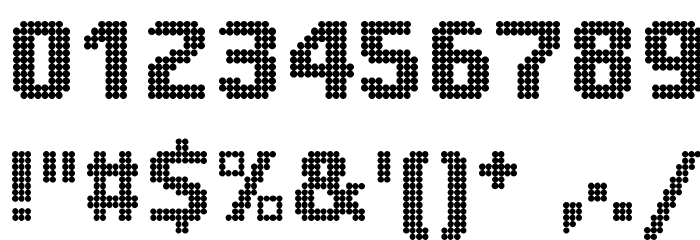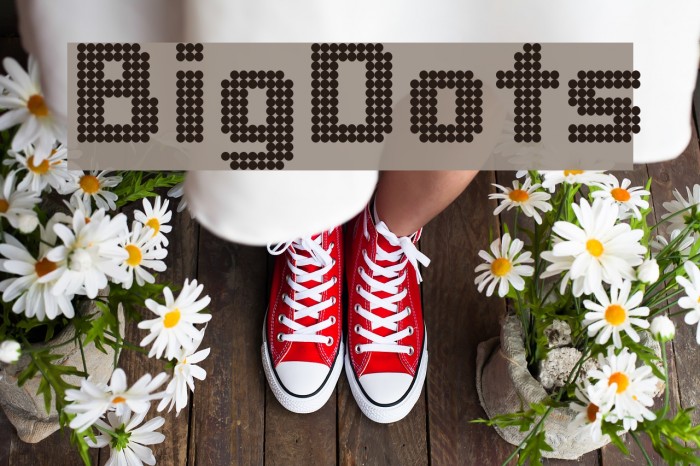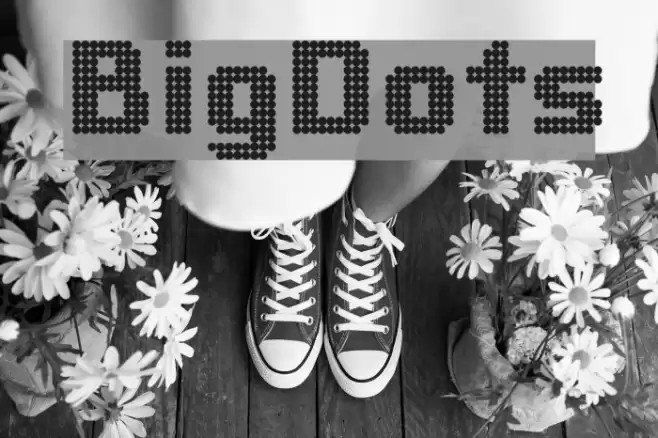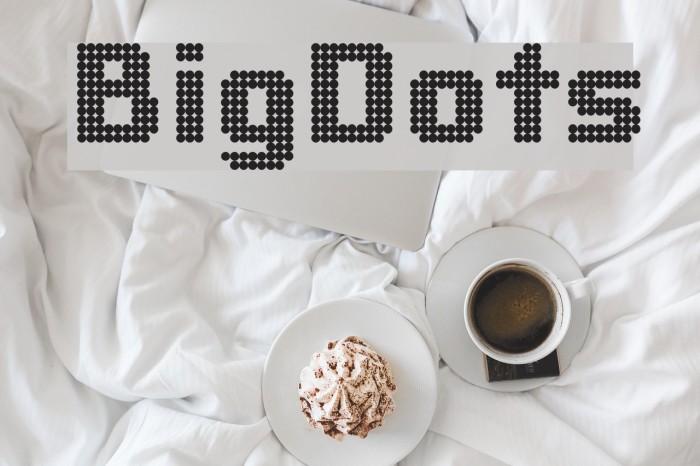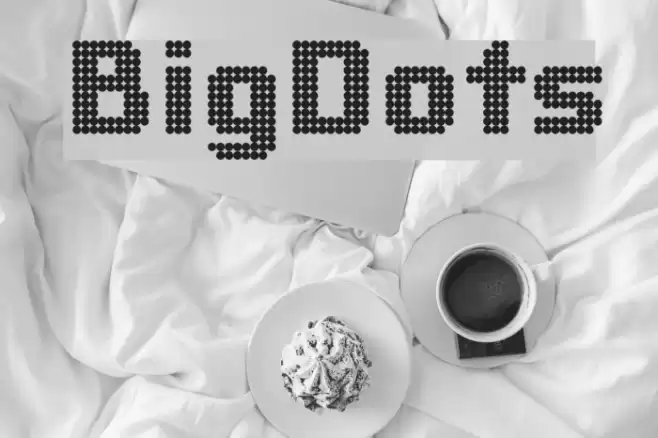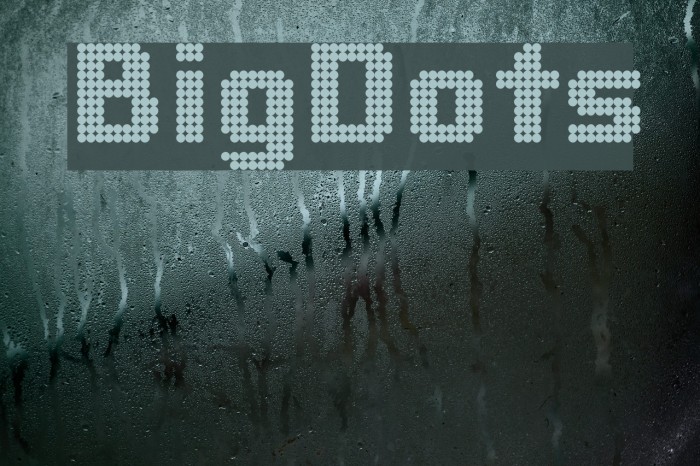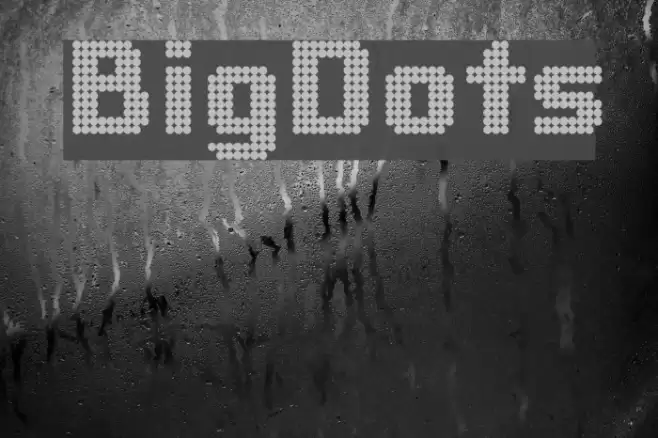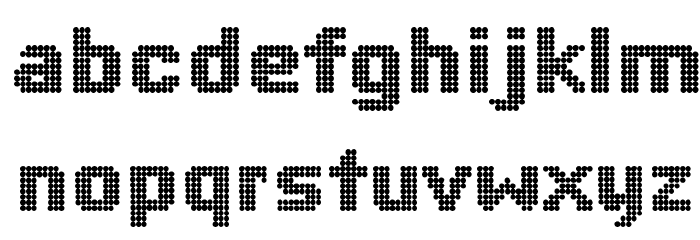
BigDots Font
BigDots Description
This font features a unique dot matrix style, where each character is composed of a grid of evenly spaced dots. The design is highly geometric and structured, giving it a digital or retro-tech appearance reminiscent of old LED displays or dot matrix printers. The characters are bold and clear, making them easily legible despite the unconventional style. The uniformity of the dots across all characters creates a cohesive and visually striking appearance, suitable for projects that require a modern yet nostalgic aesthetic.
| Proposed Projects | Ideal for digital displays, retro-themed designs, tech-related branding, and creative posters. |